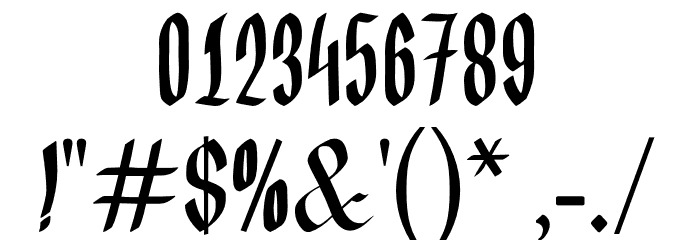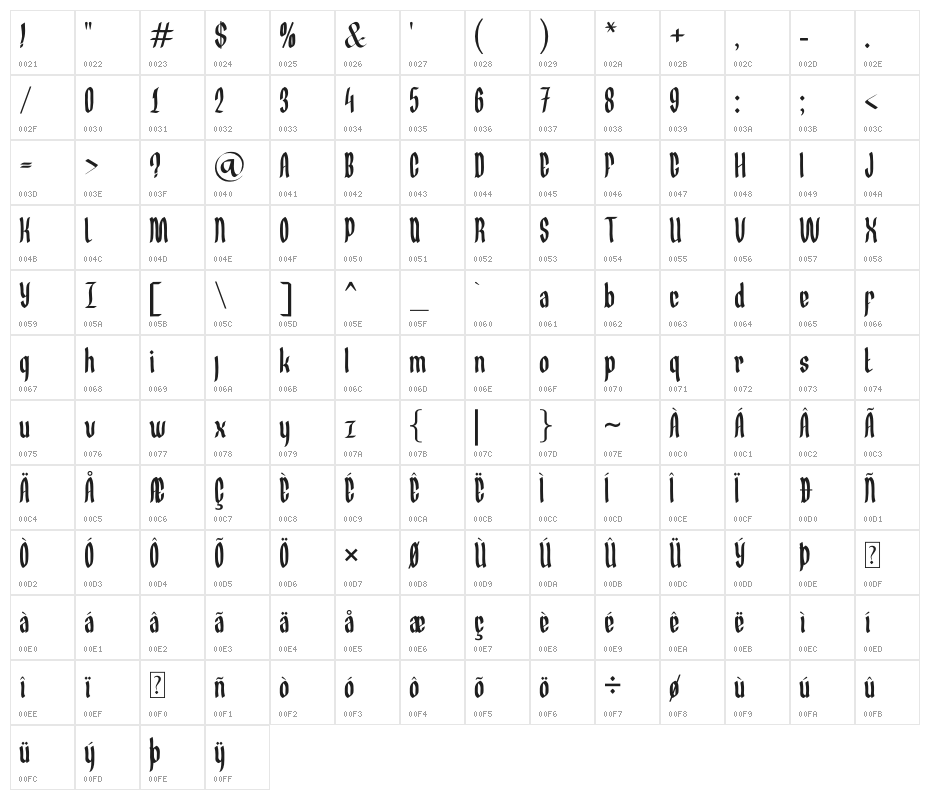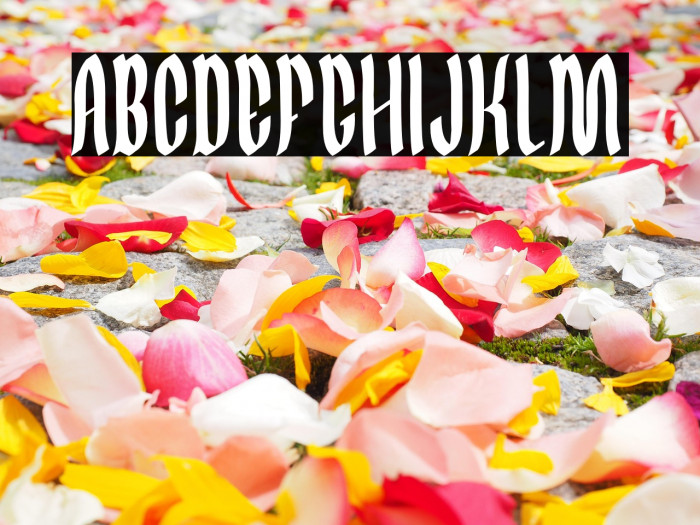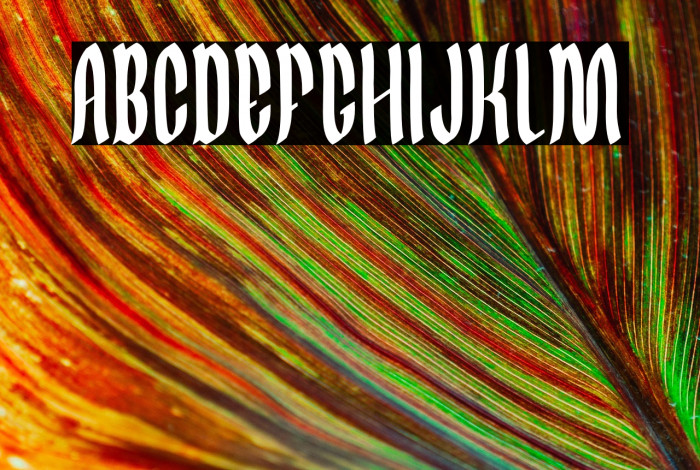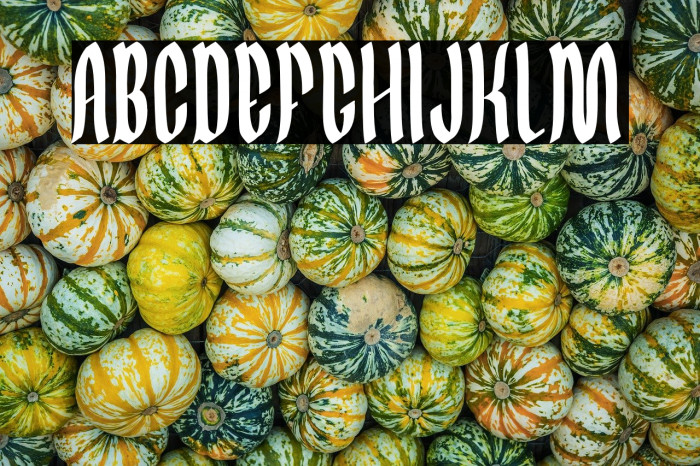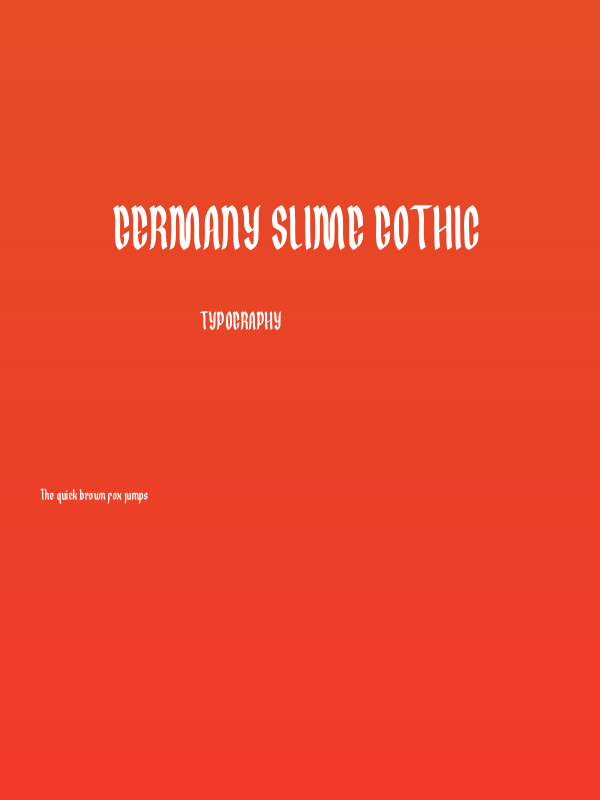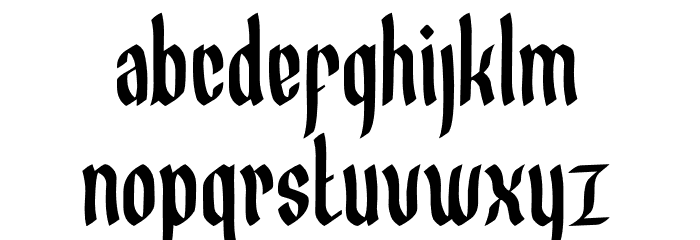
Germany Slime Gothic Font
Germany Slime Gothic Description
This font features a distinctive Gothic style with sharp, angular lines and a bold presence. The characters have a medieval flair, reminiscent of traditional blackletter scripts, yet with a modern twist that adds a unique edge. The uppercase letters are tall and imposing, while the lowercase letters maintain a consistent style, offering a cohesive look across the alphabet. Numbers and special characters follow the same aesthetic, ensuring uniformity. This font's dramatic appearance makes it ideal for projects that require a touch of historical elegance combined with contemporary design.
| Overall Style | Modern Gothic |
| Proposed Projects | Ideal for branding, posters, book covers, and any project needing a historical yet modern aesthetic. |